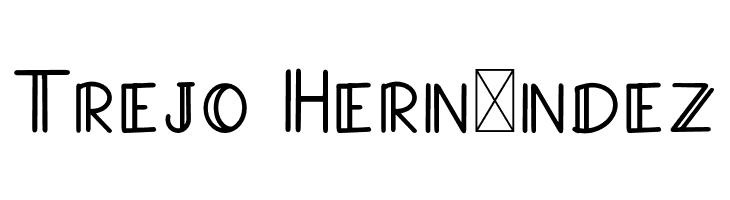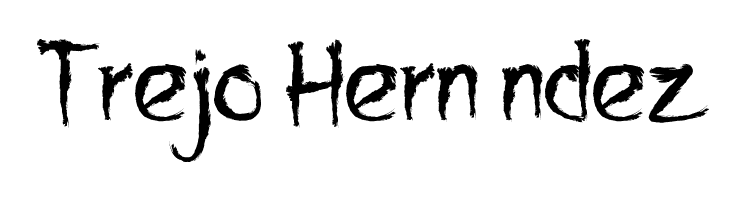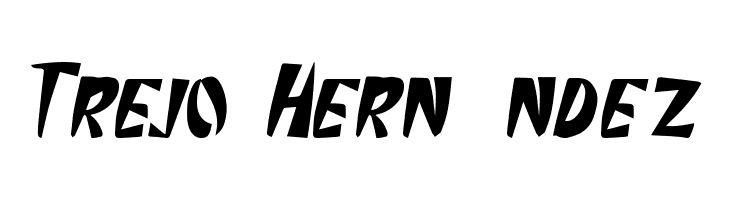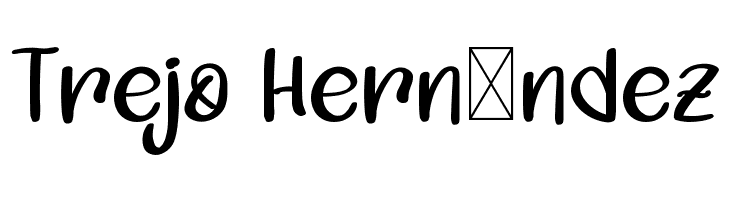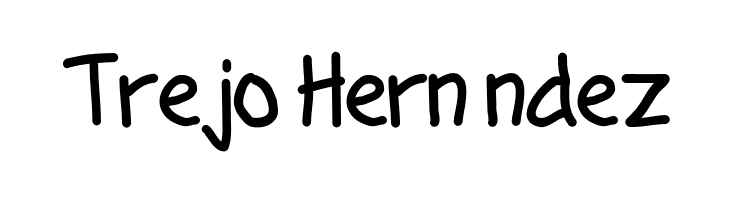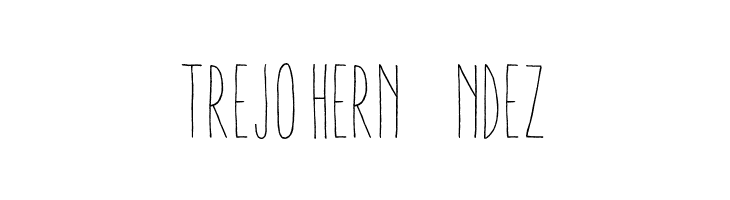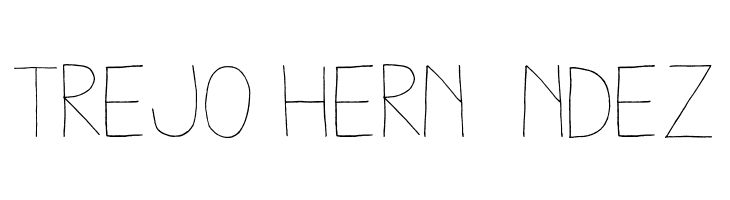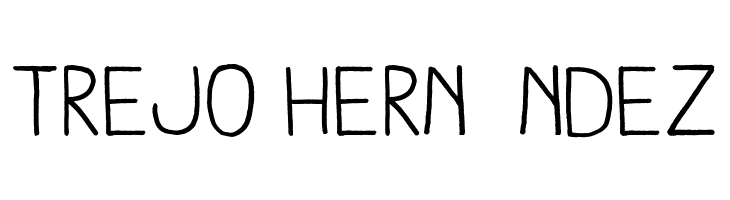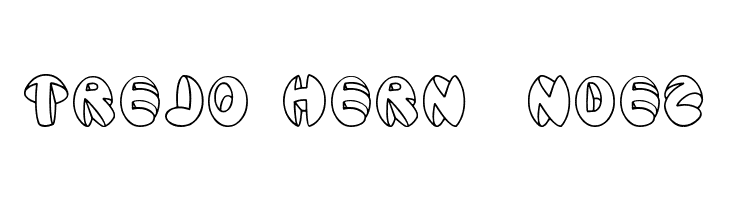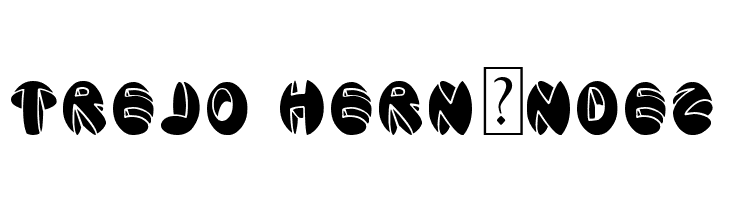
A thin, hand-drawn font with a whimsical and organic style.
A playful, handwritten font with a casual and organic feel.
A tall, ultra-condensed, hand-drawn font with a light and airy style.
A playful, artistic font with geometric and hand-drawn elements.
A bold, angular font with dynamic, energetic lines and a slightly italicized slant.
A rugged, brush-textured font with an energetic, hand-drawn style.
A playful, casual handwritten font with smooth curves and rounded edges.
A playful, geometric font with bold, rounded characters enclosed in circular shapes.
A playful, bold handwritten font with a casual and friendly style.
A bold, geometric font with solid shapes and intricate negative space patterns.